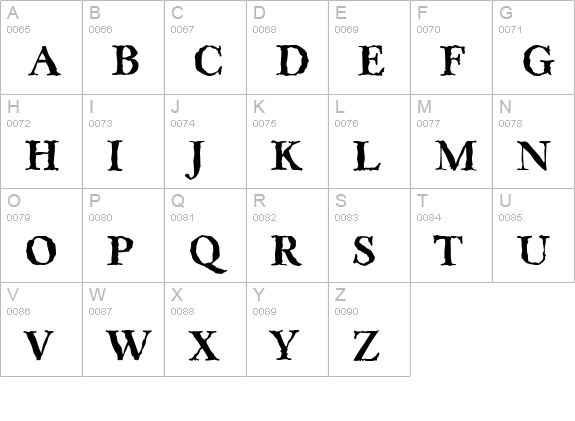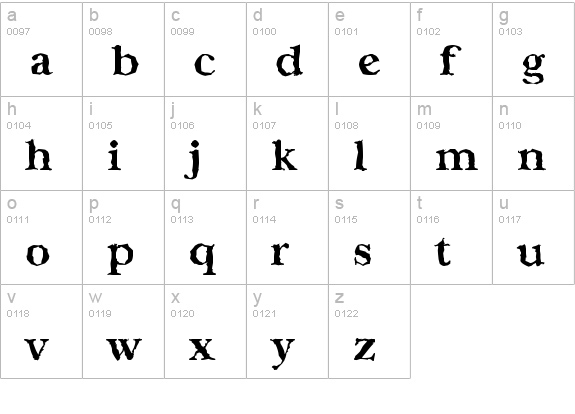
CasablancaRandom-Bold Font Details
CasablancaRandom-Bold is a strong, high-contrast variant in the CasablancaRandom typeface family \xE2\x80\x94 well suited to headlines, attention-grabbing titles, and strong calls-to-action.
CasablancaRandom-Bold is a striking display font that exudes a bold and dynamic presence. With its unique and random design, this font is perfect for creating eye-catching headings, titles, and logos that demand attention. The strong and confident strokes of CasablancaRandom-Bold make it a versatile choice for various design projects, adding a touch of modernity and sophistication. What sets CasablancaRandom-Bold apart is its ability to convey a sense of playfulness and creativity while maintaining a professional and polished appearance. Whether used in print or digital designs, this font is sure to make a statement and leave a lasting impression on your audience. Best of all, CasablancaRandom-Bold is available for free download at FontsMarket.com, making it easily accessible for designers looking to add a contemporary edge to their creations. Don't miss out on the opportunity to enhance your projects with this stylish and impactful font.